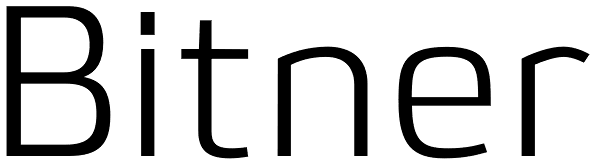
Bitner
Bitner is a contemporary styled sans serif font that takes the name from the process of collecting bitcoins ‘bitcoin mining’. The simple, spur-less letterforms with no adornment are a direct influence from the crypto-currency technology and help to...